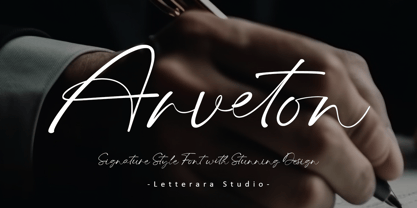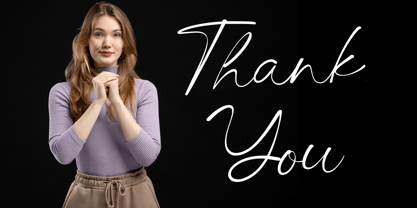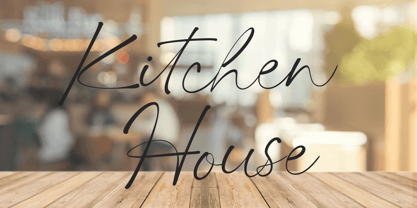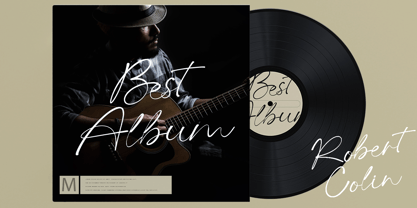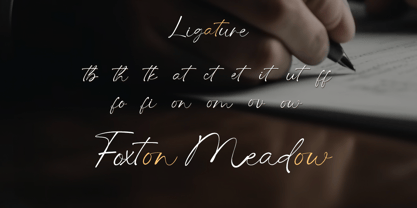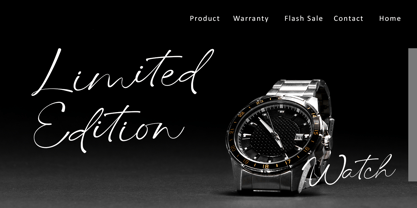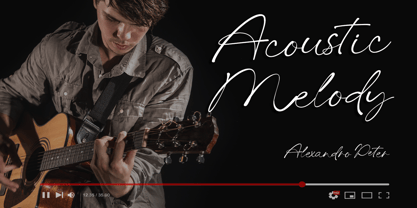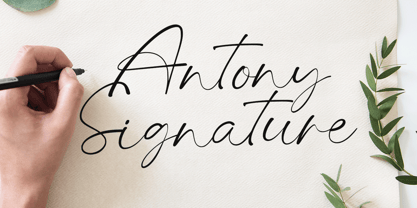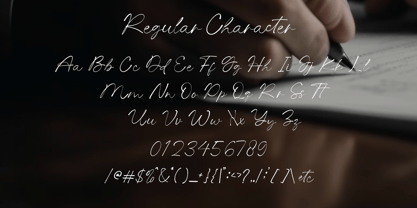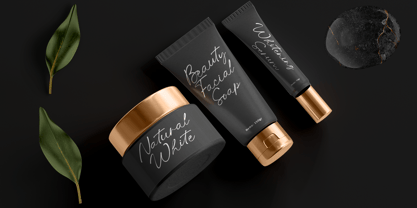
Arveton
The Arveton Font Family was designed by Thomas Aradea and published by Letterara. Arveton contains 2 styles and family package options.
Arveton is a sophisticated signature font that blends the fluid beauty of handwritten strokes with modern elegance, making it perfect for logos, branding, wedding invitations, and stylish packaging. Designed to feel personal and expressive, each letter flows naturally like a real signature, adding a touch of authenticity and charm to your designs. With PUA encoding and a range of alternates, Arveton offers versatility and creative freedom, allowing you to craft beautifully customized typography that leaves a lasting impression.